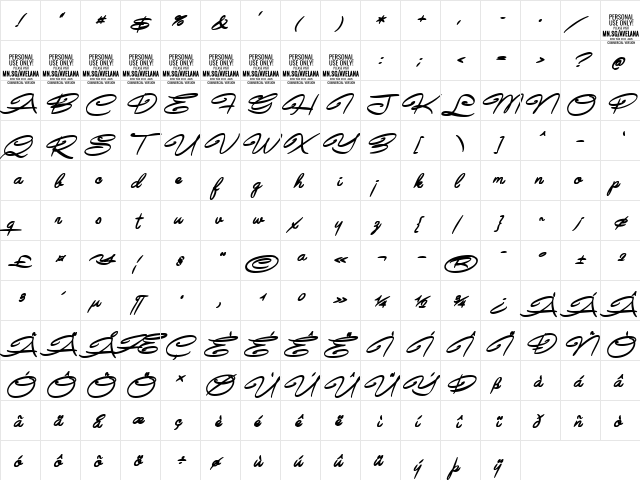
Avelana Bold Ital PERSONAL USE Regular
Design Context for Avelana Bold Ital PERSONAL USE Typeface
Avelana Bold Ital PERSONAL USE is a composed and adaptable typeface that performs quietly and consistently across a wide range of design contexts. Its bold stroke weight gives it real presence on the page.